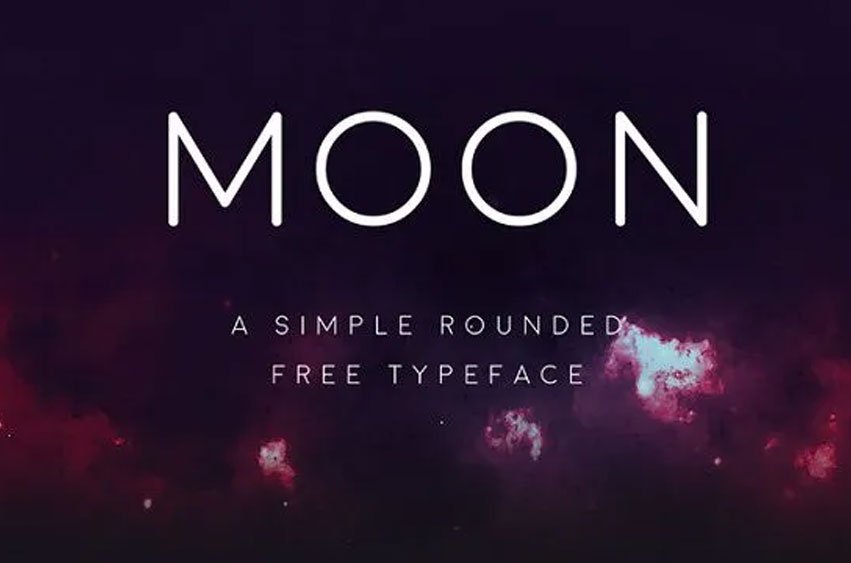
Moon Simple Font
Moon Simple Font Jack Harvatt designed Moon. Minimalistic and stylish urban sans serif class type with over 250 characters.
If you are creating stunning logos and titles, Moon Typeface is perfect for you as it will easily pair with different fonts and complement any project you are working on.